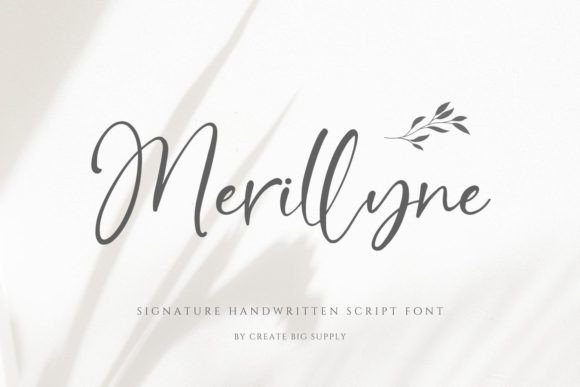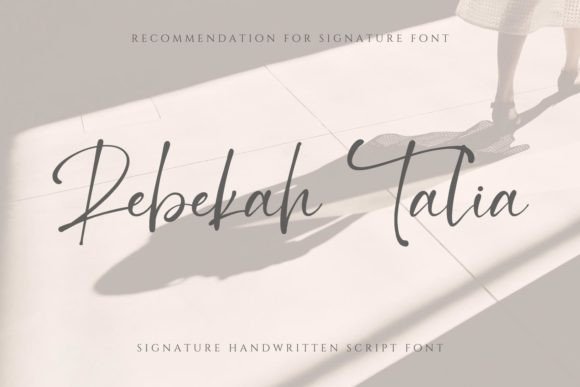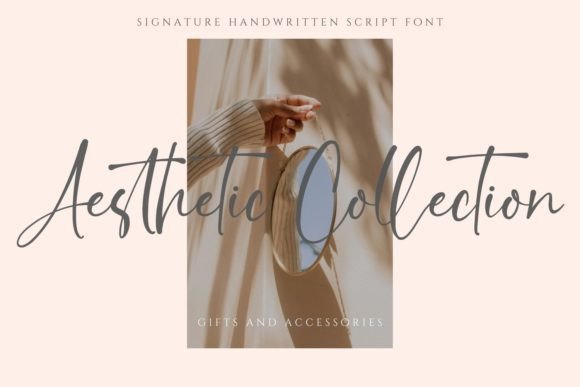
Merillyne Font: Elegant Script Signature Font for Branding & Wedding Invitations
About the Merillyne Font
Experience the unique personality of Merillyne Font, a font designed for impact. Discover Merillyne, a captivating script signature handwriting font that brings elegance and personality to your designs. With its beautiful cursive style, this font is perfect for adding a touch of sophistication to your projects. Whether it’s creating stunning logos, eye-catching invitations, or stylish branding, Merillyne delivers a seamless handwritten look. The font includes both uppercase and lowercase letters, numbers, punctuations, multilingual support, and PUA encoding for easy access to special characters. Enhance your designs with the timeless charm of Merillyne Script Signature Handwriting Font. Download now and unlock a world of creative possibilities.
Merillyne Font Usage Examples
Merillyne Font Example